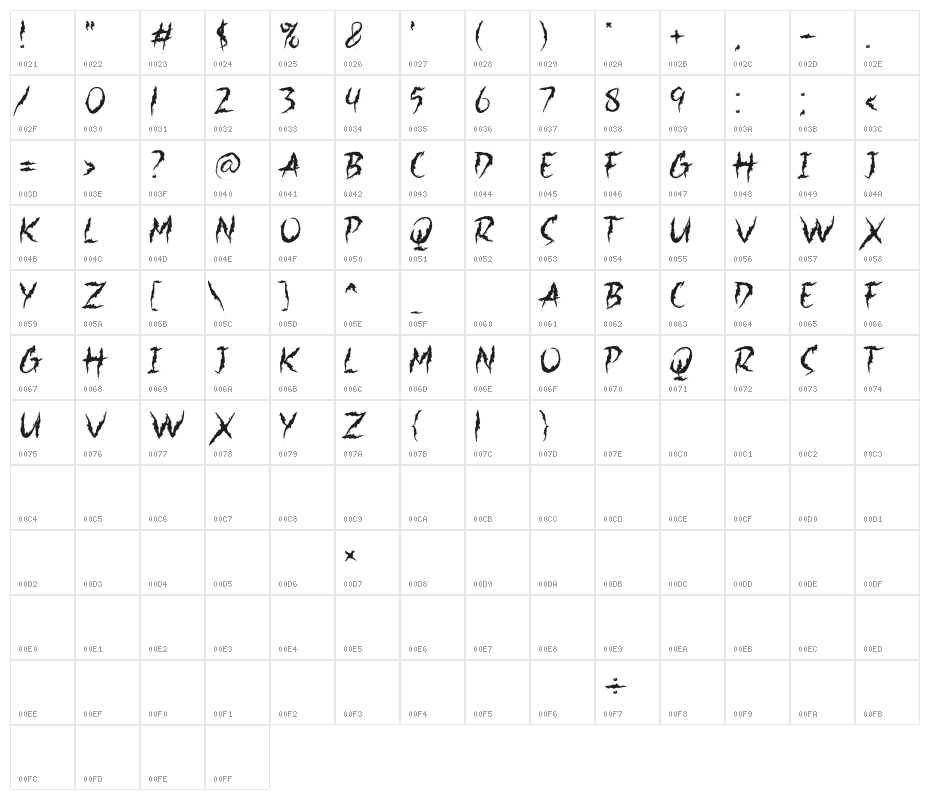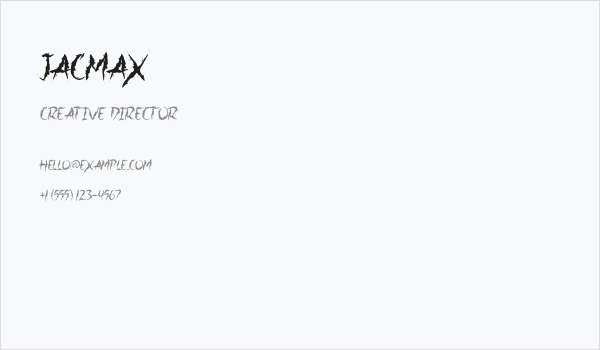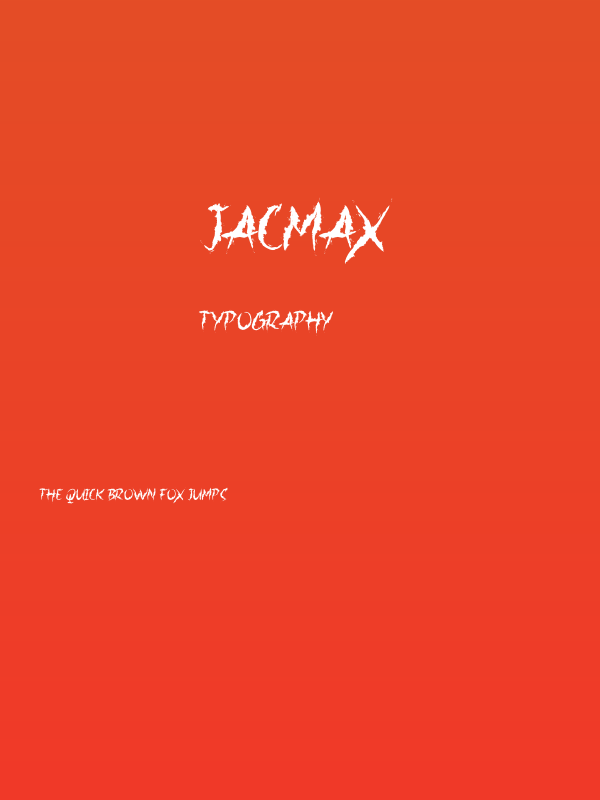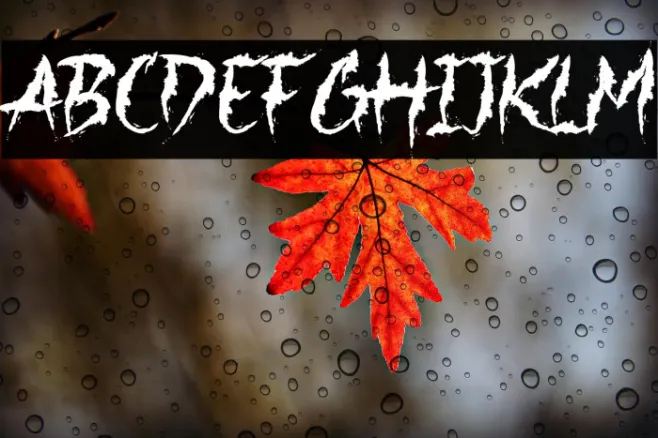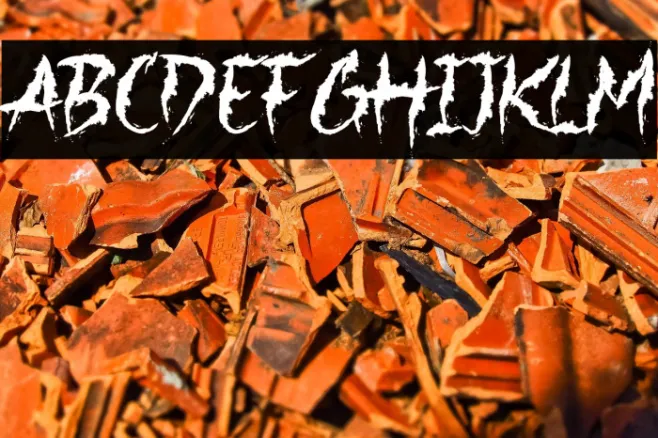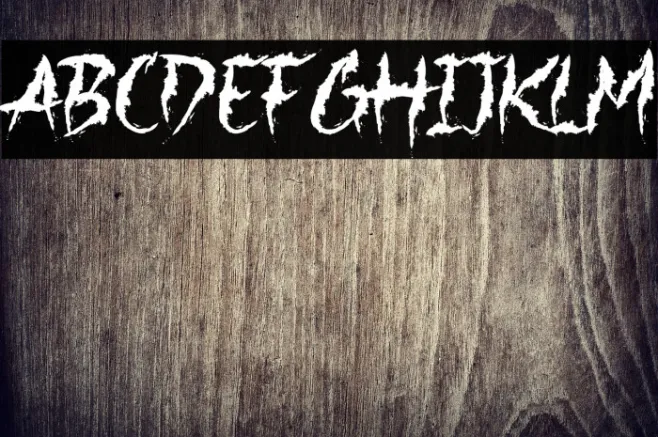
Jacmax Font
Jacmax Description
This font features a bold and aggressive design with a distressed, grunge-like appearance. The characters are jagged and irregular, giving them a raw, edgy feel. The strokes are thick and uneven, creating a sense of movement and energy. This style is reminiscent of graffiti or street art, making it stand out with its unique and rebellious aesthetic. The uppercase and lowercase letters maintain a consistent style, while the numbers and special characters follow the same rugged theme. The overall look is chaotic yet controlled, perfect for making a bold statement.
| Overall Style | Modern, Grunge |
| Proposed Projects | Ideal for album covers, posters, streetwear branding, or any project needing an edgy, rebellious touch. |